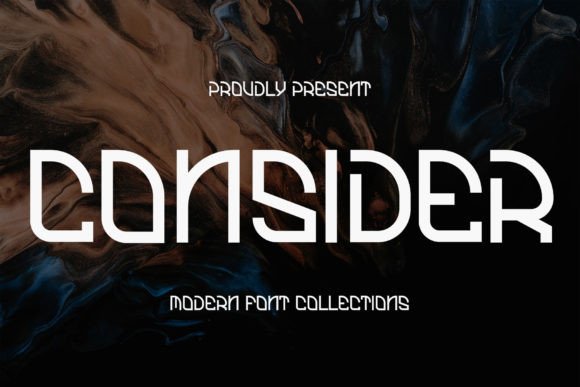
Dive into the realm of branding, marketing, and design with Consider, the font that redefines sophistication. Its meticulously crafted curves and confident strokes captivate audiences, making it the perfect choice for your business logo. Consider's versatility extends beyond logos, seamlessly transitioning into headlines, branding elements, and packaging designs. Unleash your creativity and watch as your creations come alive with Consider's enchanting presence.
Consider, a sans serif masterpiece from the creative minds at YanStudio, embodies elegance and modernity. Each letterform exudes a distinct character, enhancing the impact of your messages. With Consider, your brand identity soars to new heights, leaving an indelible impression on your audience. Embrace the power of simplicity and clarity, as Consider effortlessly conveys your brand's narrative.
Embrace the opportunity to craft a visual identity that resonates with your audience. Consider's versatility knows no bounds, adapting effortlessly to a multitude of design projects. Imagine your business cards, brochures, and website adorned with Consider's timeless beauty. Its clean lines and crisp edges ensure readability and visual appeal across various platforms. Experience the transformative power of Consider and unlock a world of design possibilities.